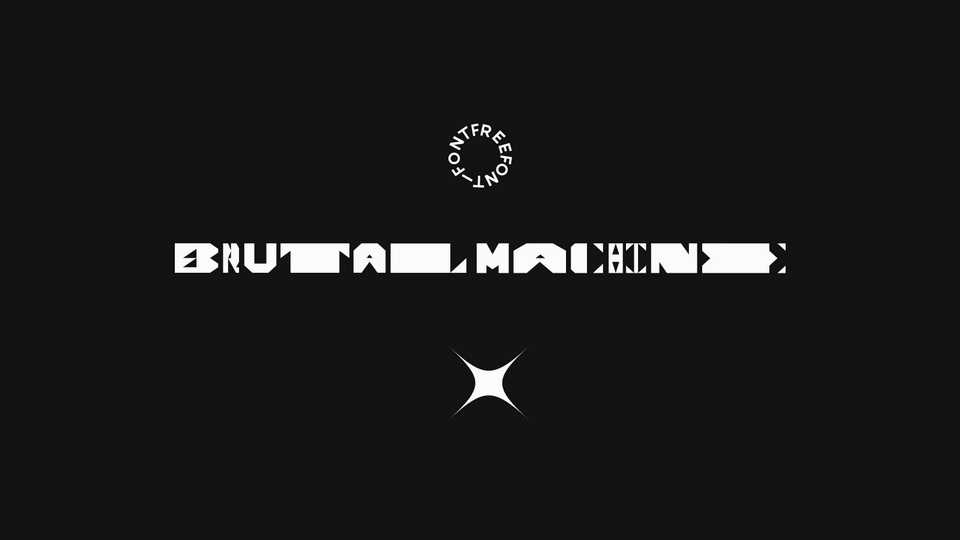
Download BrutalMachine font, a squared typography resulted from the 36daysoftype challenge. It features the concept of BrutalMachine because of the favorite album Worship the Machine.
Designer: Walter Gómez